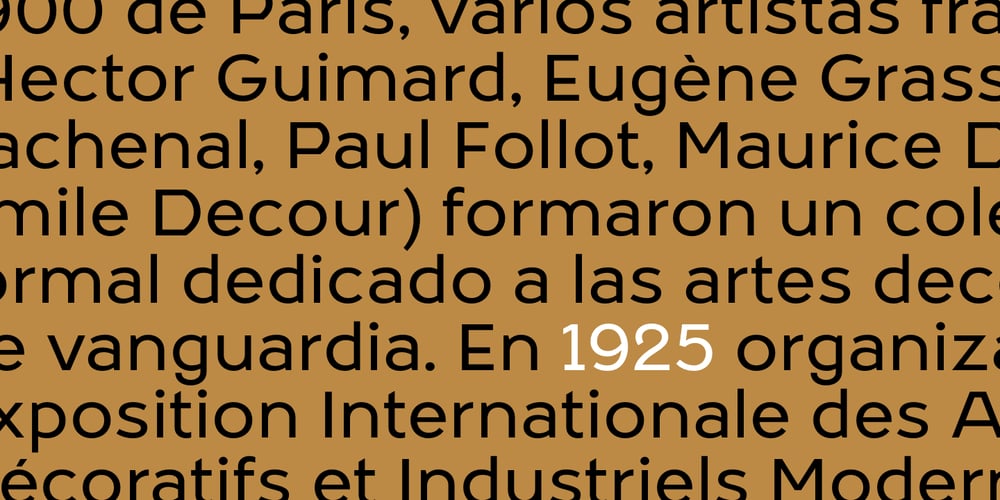
Geo Deco
Geo Deco font
Geo Deco Font Family was designed by Josep Patau Bellart and published by Tipo Pèpel. Geo Deco contains 16 styles and family package options. Geodeco font family brings to you the recovery of the typographic forms from the beginning of the 20th century, with a strong ArtDecó flavour but from a new point of view: modernity and geometry. Modernity in the visual contrast between lowercase and capital letters, where rounded shapes are opposed to the breaks and graphic tensions of the strokes of the capital letters. which gives it an enormous originality. Generous doses of internal whites, assure a powerful legibility even with the spite of its short ascending and descending strokes. What we get is a coherent and martial look where fluidity and homogeneity is the main note. Soft and rounded minuscule, with large internal whites for super legibility, bombproof, especially on screens, where Geodeco lives with an astonishing naturalness. The capital letters, used alone as display, or as companions of the minuscule characters, give the family a touch of originality and exotic flavor. Like the spices in the food; a brief but intense note. Breaking the rectangular shapes so that the appearance of the letter comes out benefits from enlarging the internal whites and making them consistent with the white of the lower case. GeoDeco works very well in plain text with the obvious limitation that it is not a type for small bodies, but exceptionality weldon for plain text and signage. Maximum visibility, total beauty on screens. A family of this new century with the flavour of that epoch of experimentation that were the years 20. Extensive multilanguage support and almost all Opentype functionalities. Try it and it will convince you – for sure!